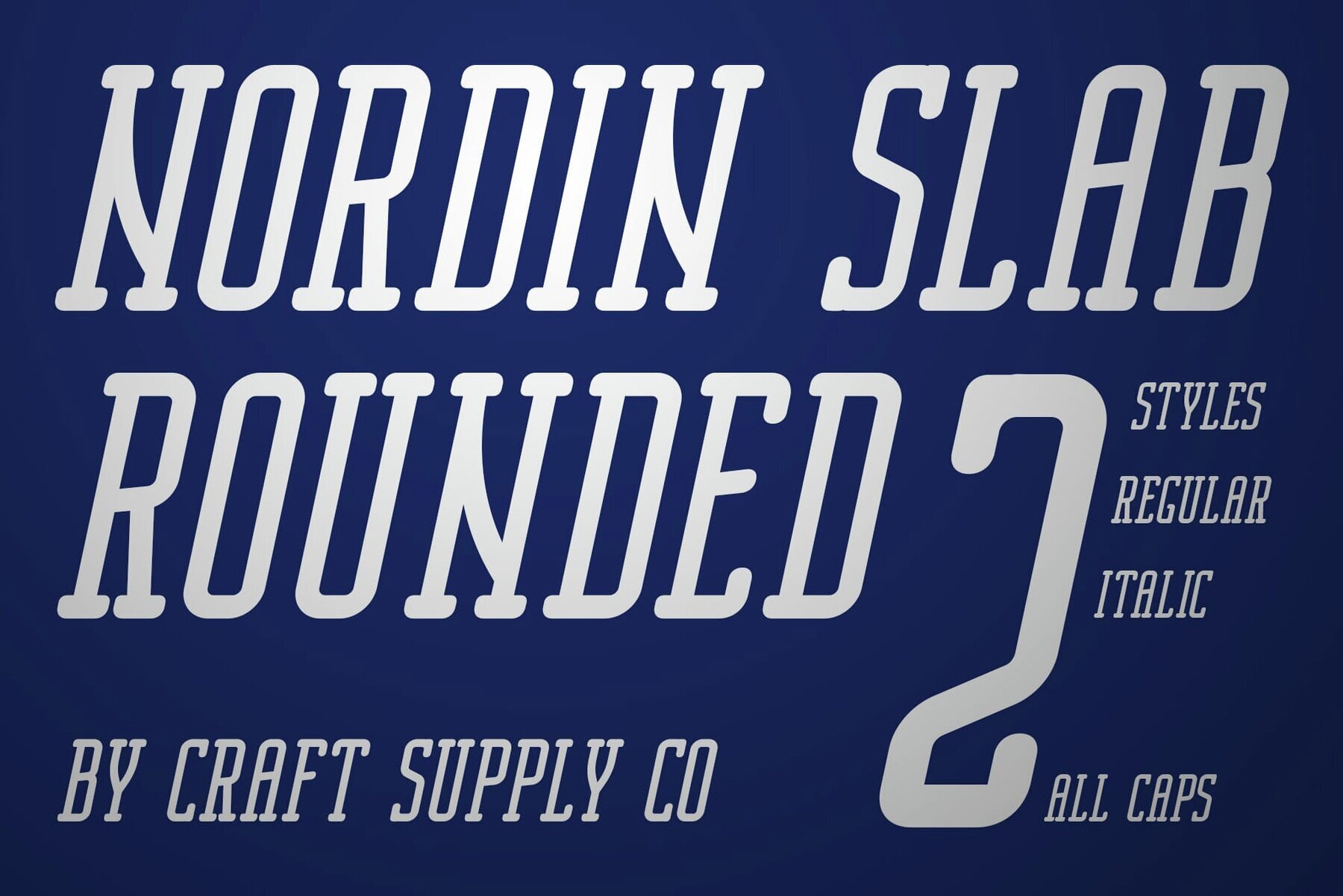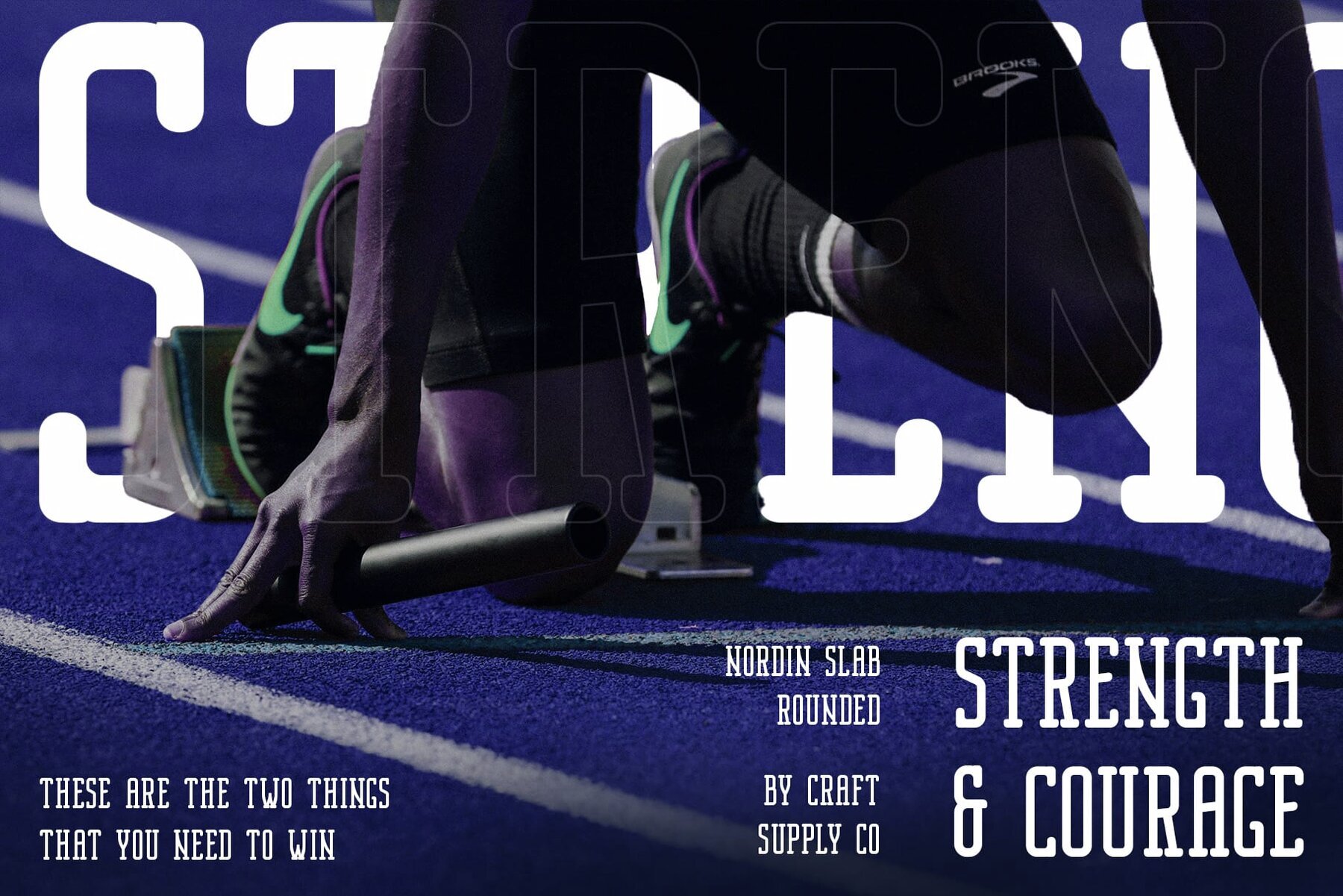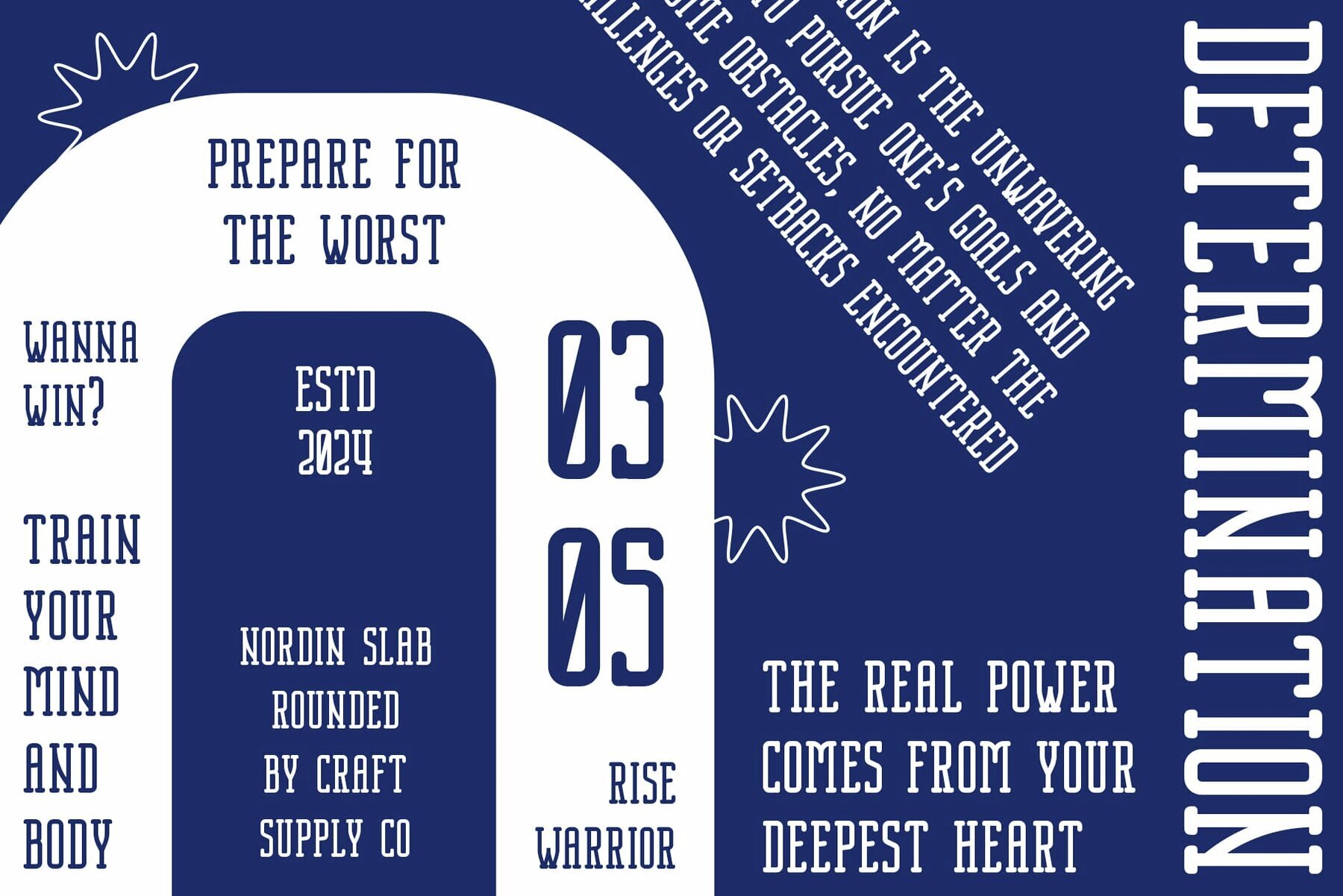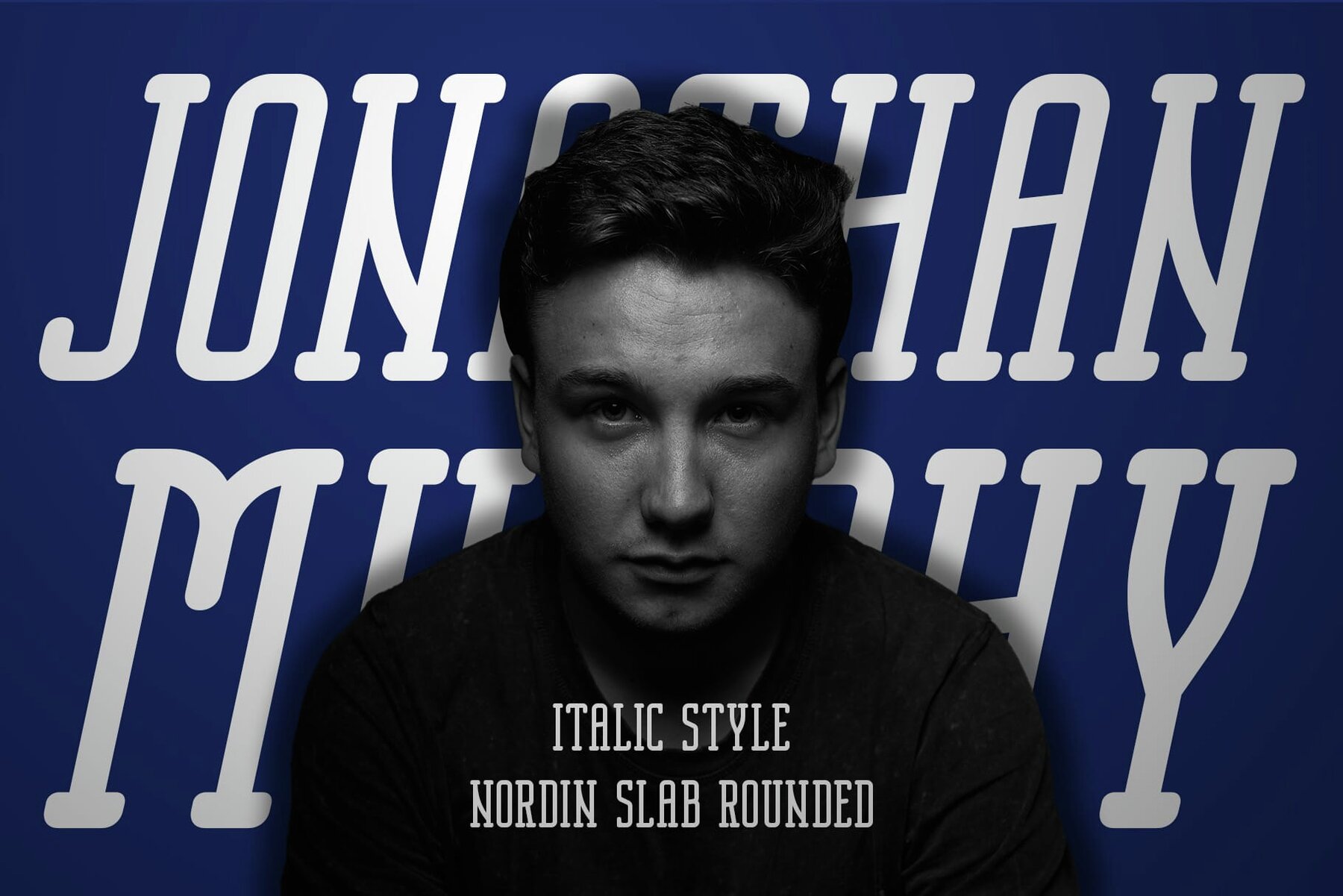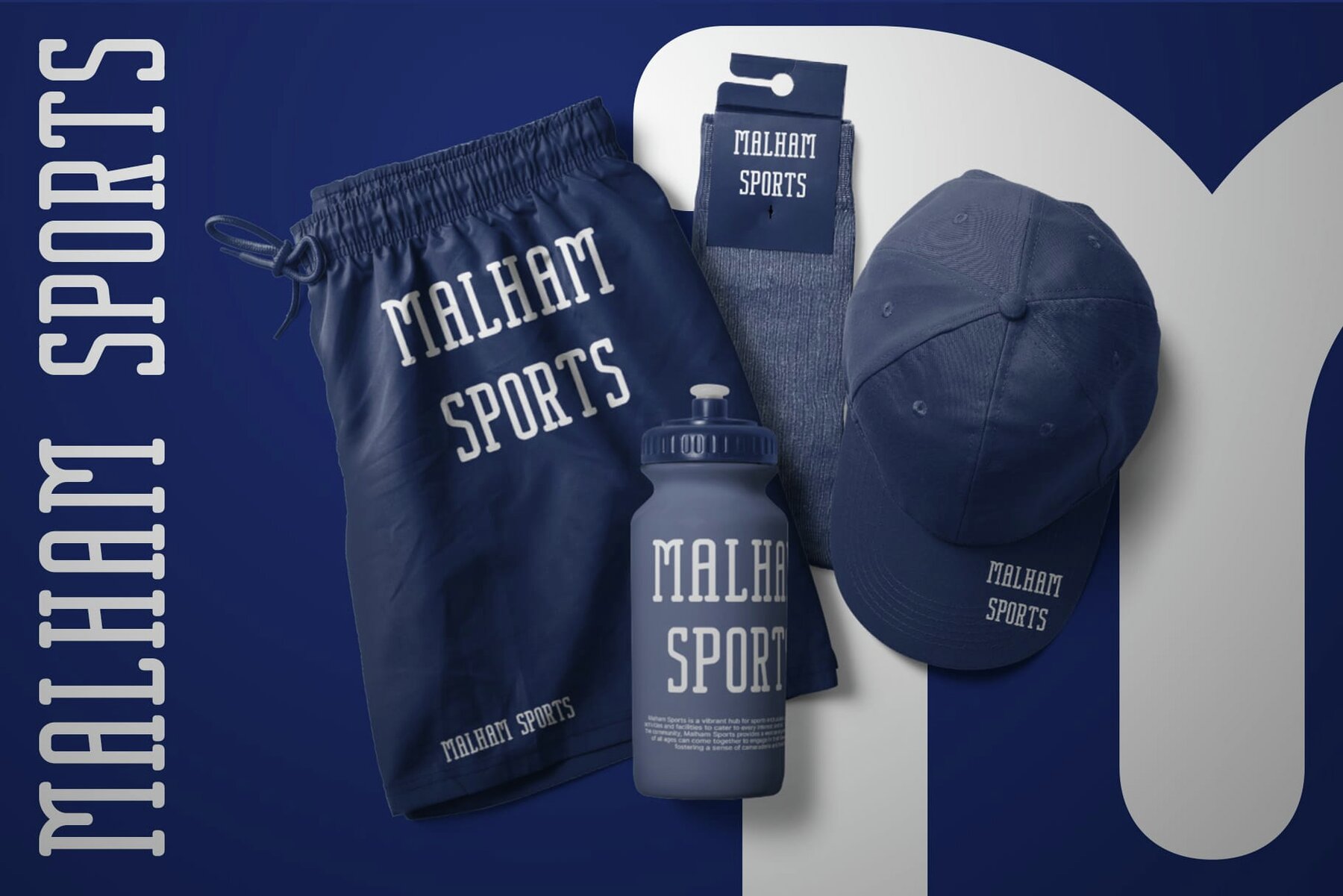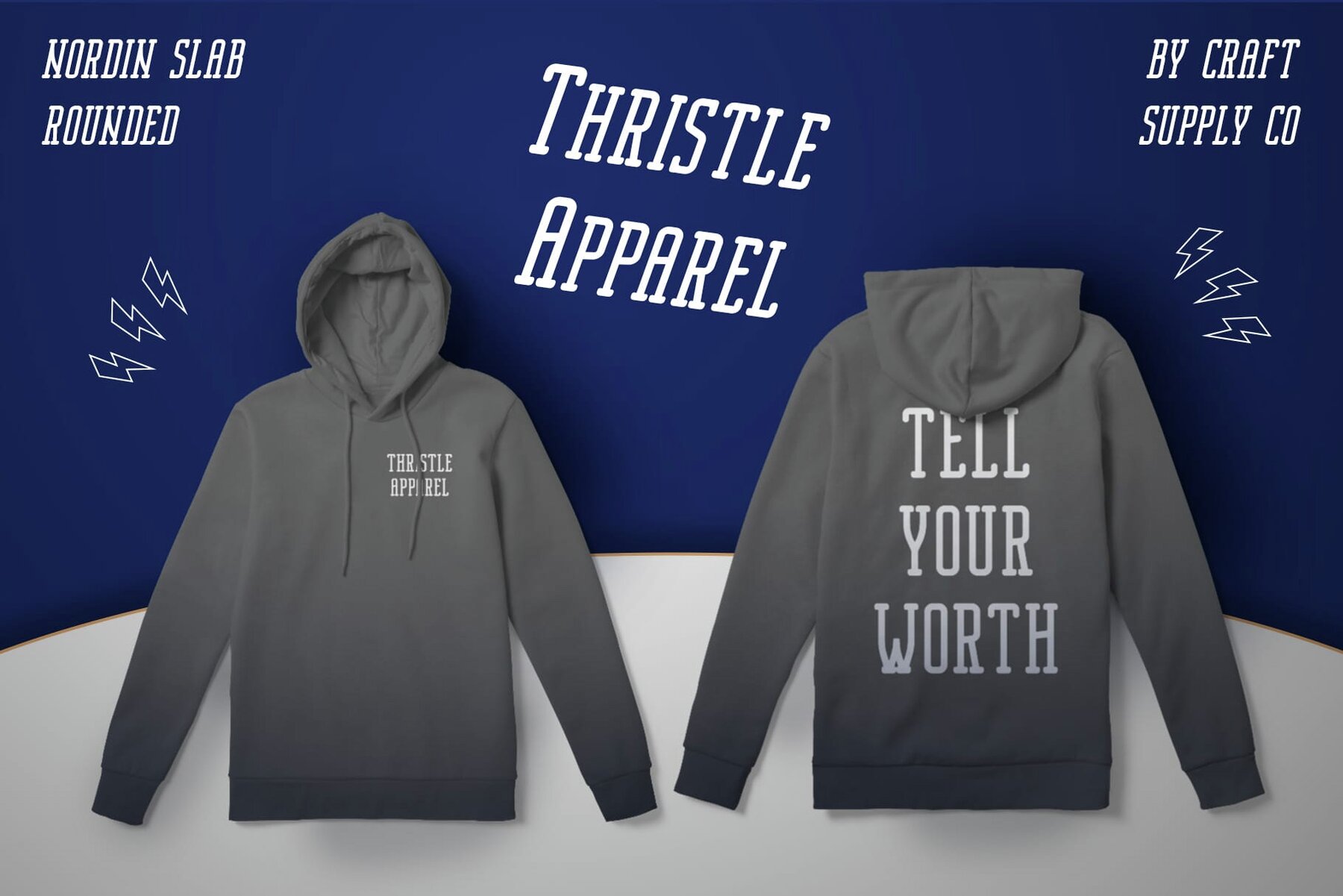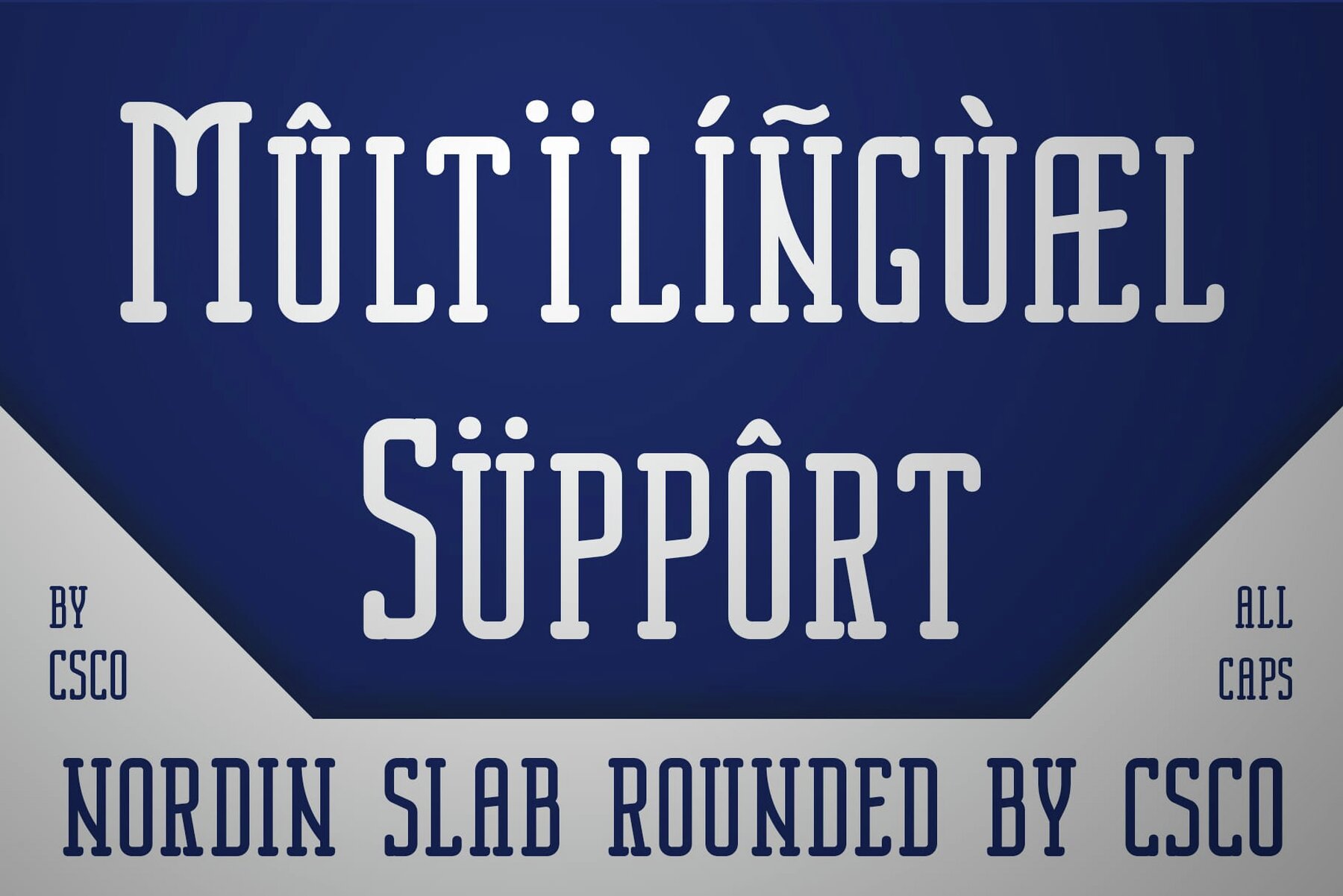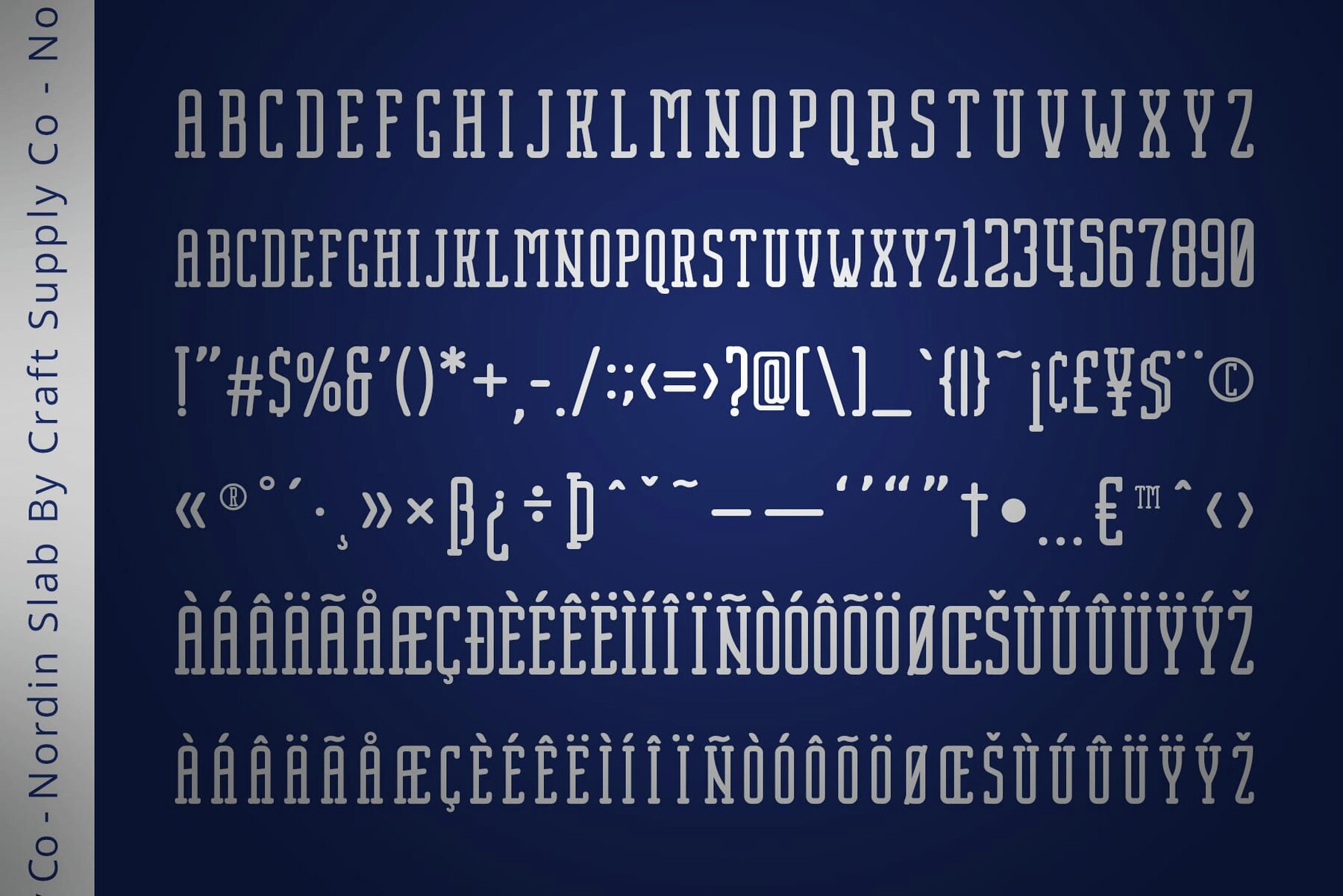
Nordin Slab Rounded Font
Nordin Slab Rounded is a sleek and modern slab serif with a condensed design, making it ideal for optimizing space without sacrificing readability. Its standout feature, the rounded stem ends, softens the overall appearance of the typeface, adding a touch of friendliness and approachability that distinguishes it from traditional slab serifs. This makes it a versatile choice, suitable for a wide array of design projects, including headlines, branding, and packaging.
The font's bold and impactful letterforms ensure that it commands attention, even at smaller sizes, while maintaining clarity and readability. Nordin Slab Rounded offers uppercase and lowercase characters, numerals, punctuation, and multilingual support, all encoded with PUA for ease of use in various software environments. This modern yet soft typeface is a valuable addition to any designer’s toolkit, capable of enhancing diverse creative projects with its unique charm.